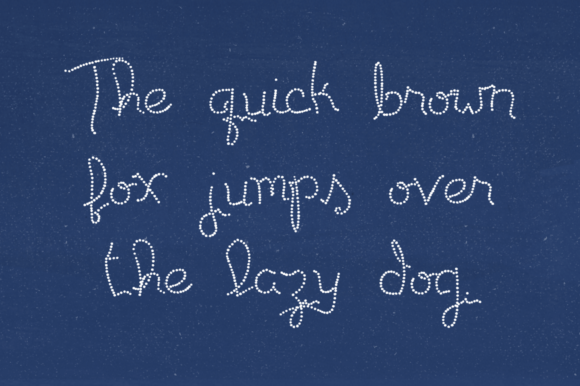
Introduction to Publicite D’epoque Font
Based on a vintage French advertisement, PublicitΓ© d’époque was designed to resemble a chain of stars.
It features a looping, exaggerated cursive and contains enough symbols to write in its native tongue .
Key Features of Publicite D’epoque Font